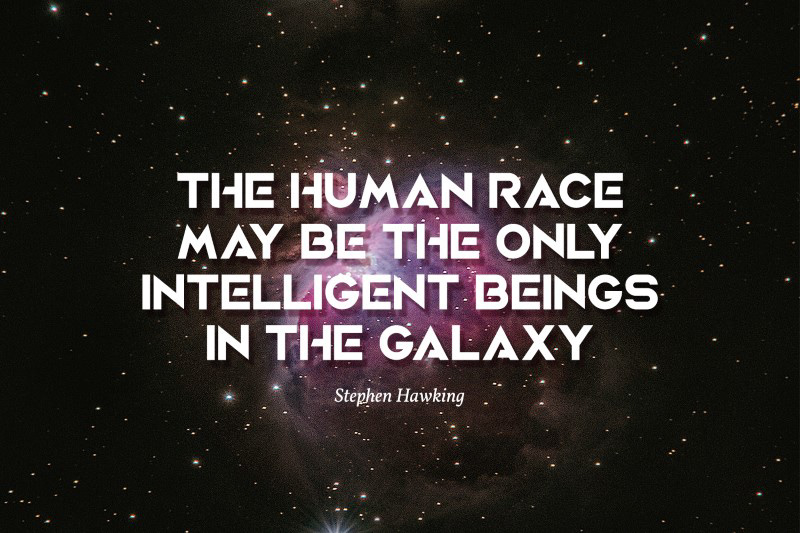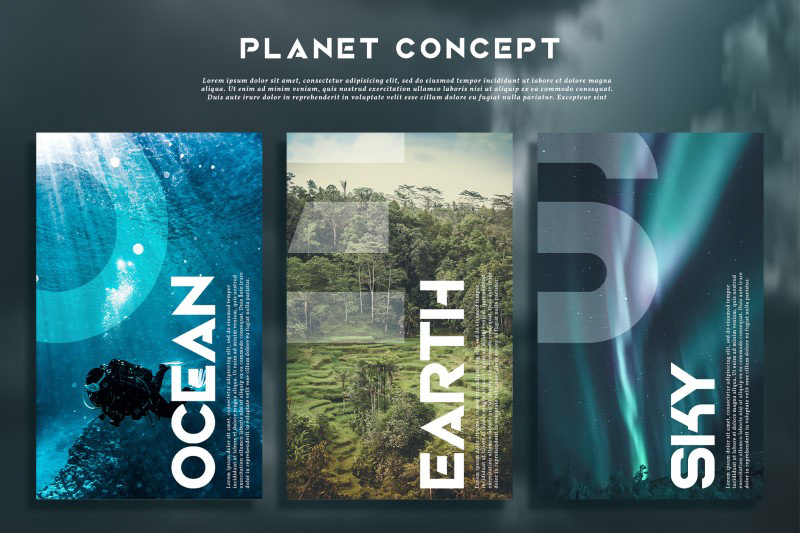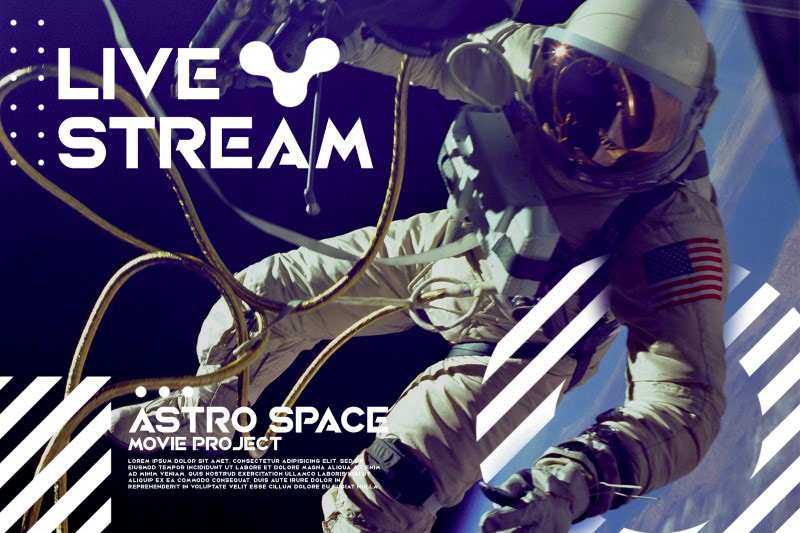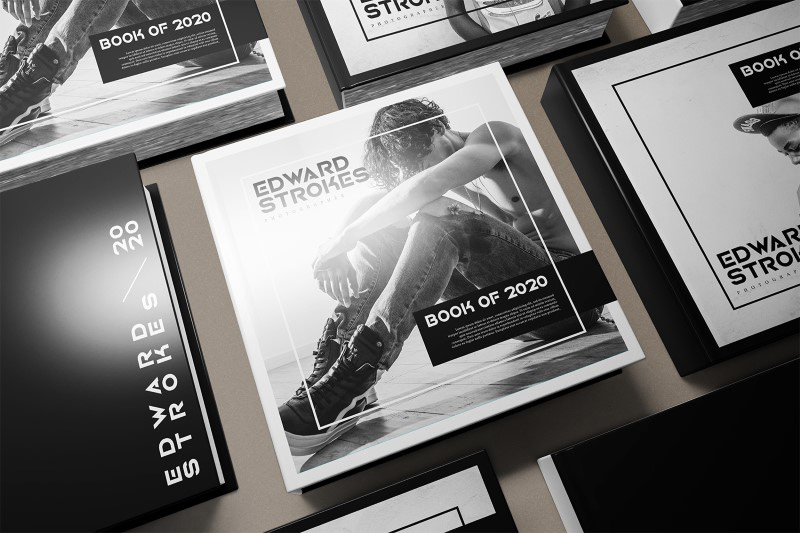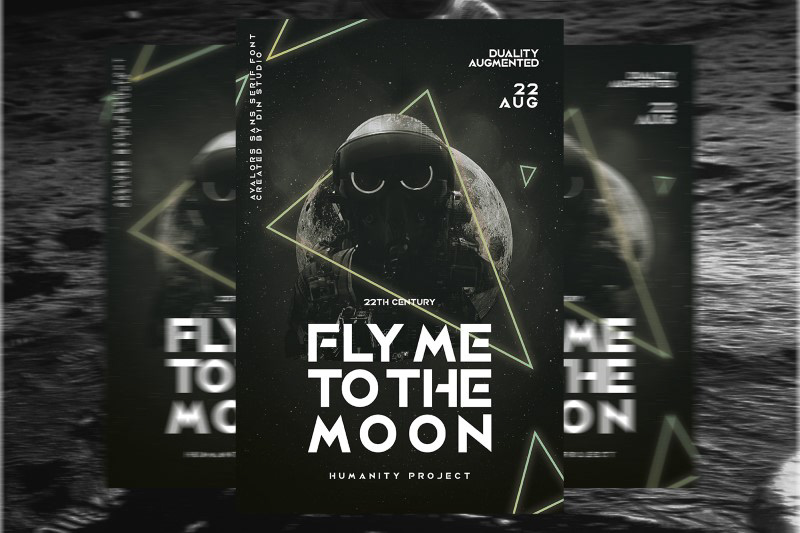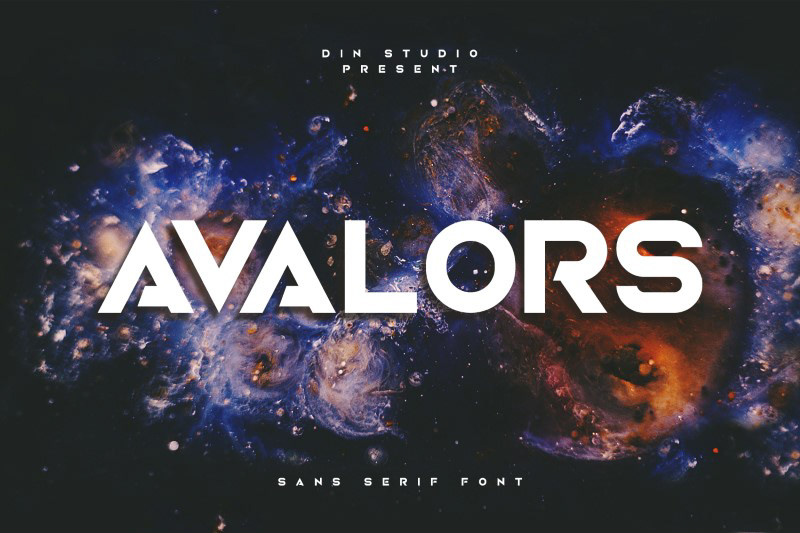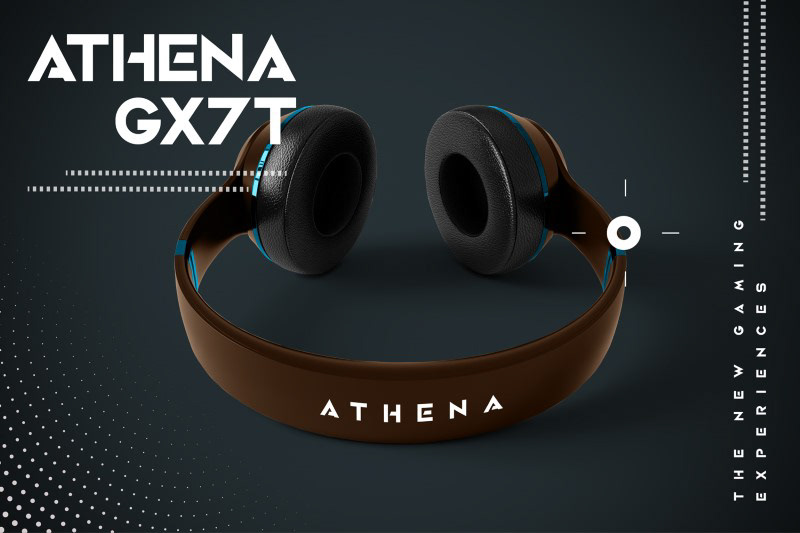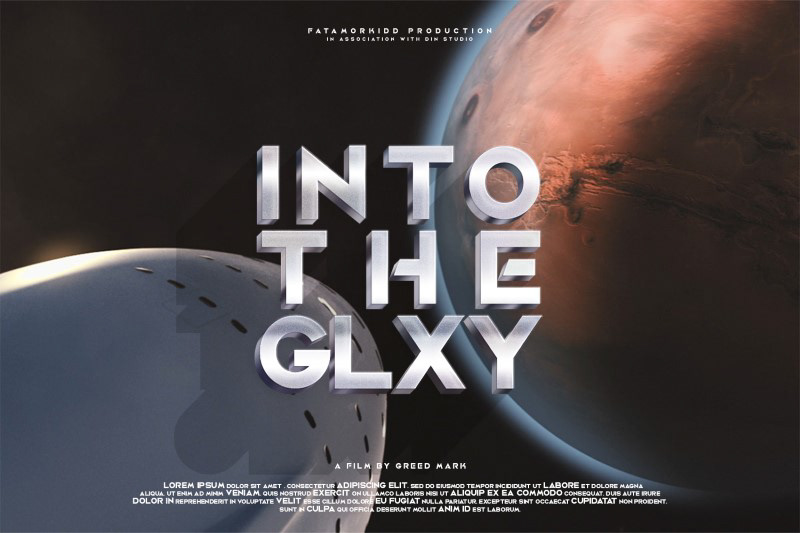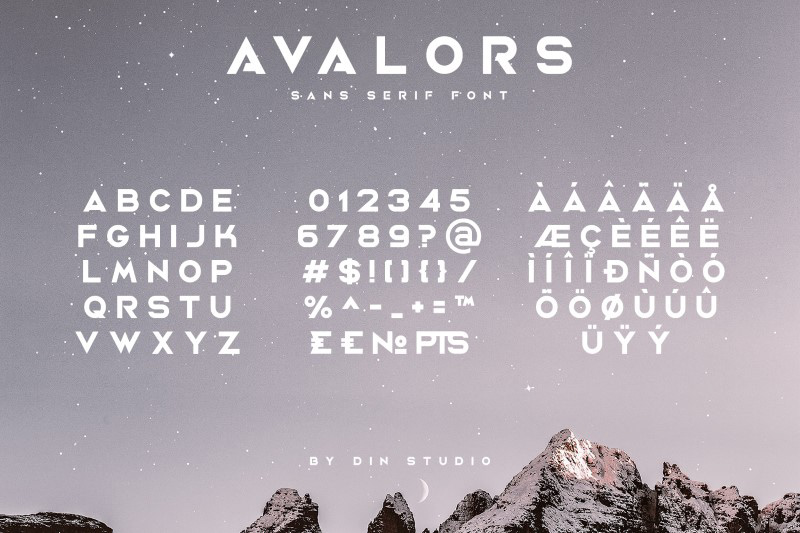
Avalors – Sans Serif Font By: Din Studio
Avalors is a bold and authentic sans serif font. It suitable for your any project that needs the outer space touch. This font is the best for branding project, t-shirt print and many more.
It suitable for your any project that needs the outer space touch.
Avalors – Sans Serif Font
By: Din Studio